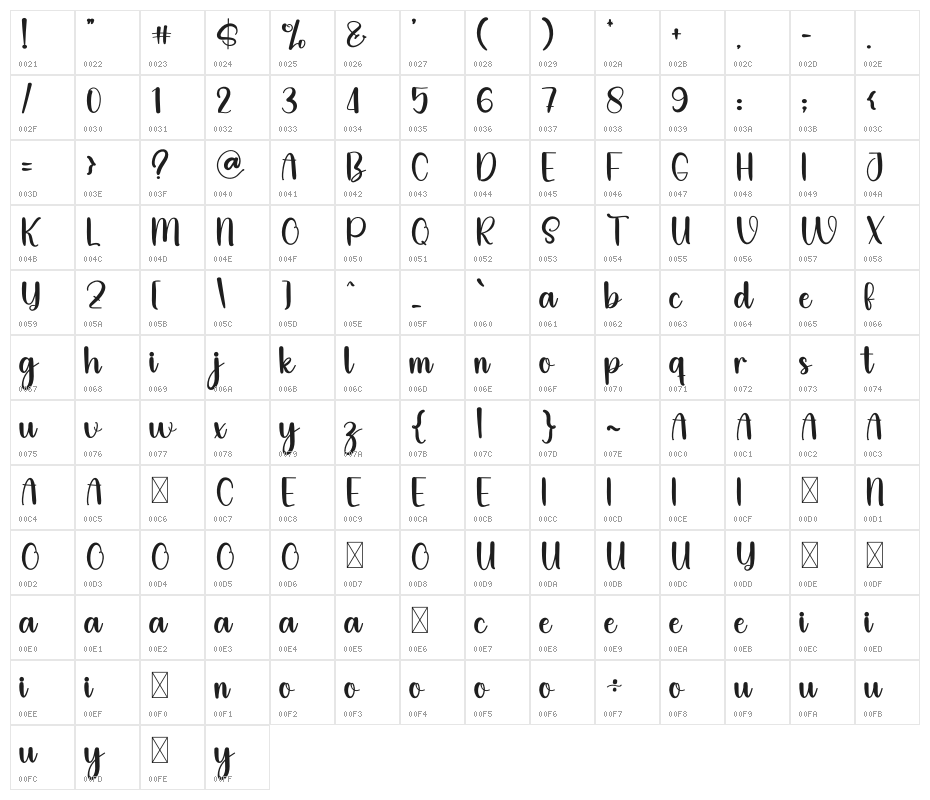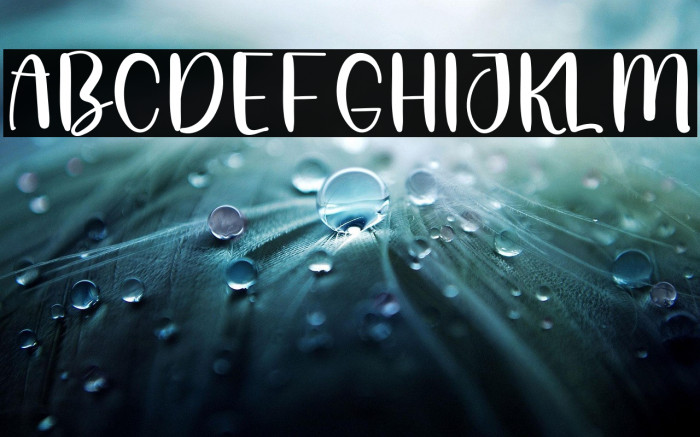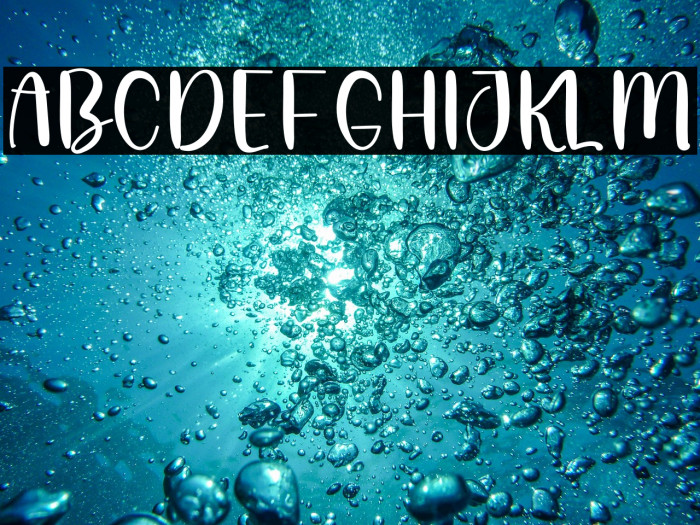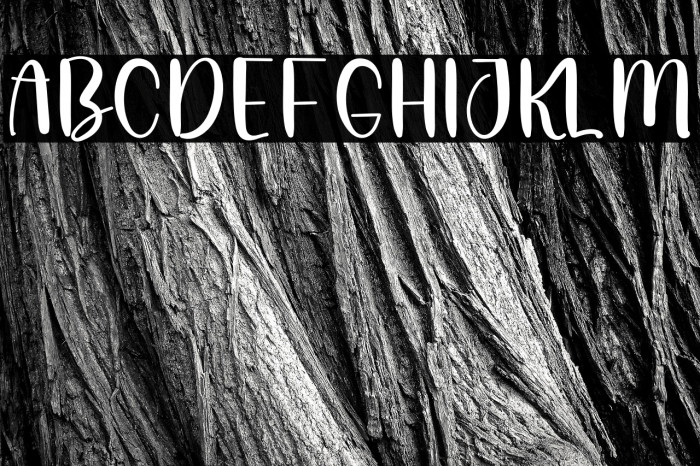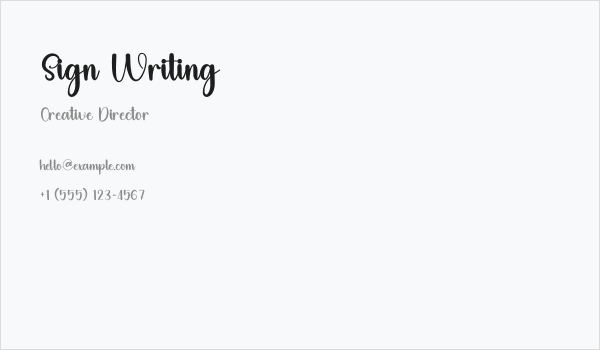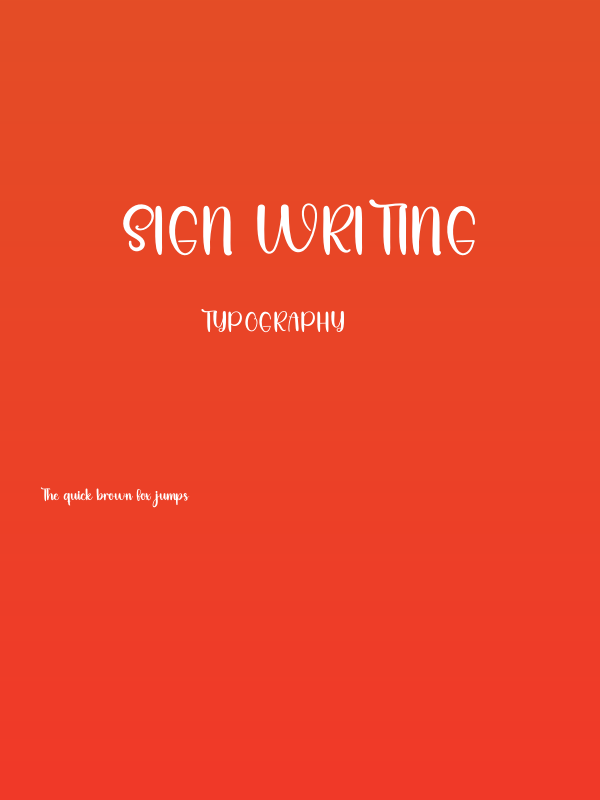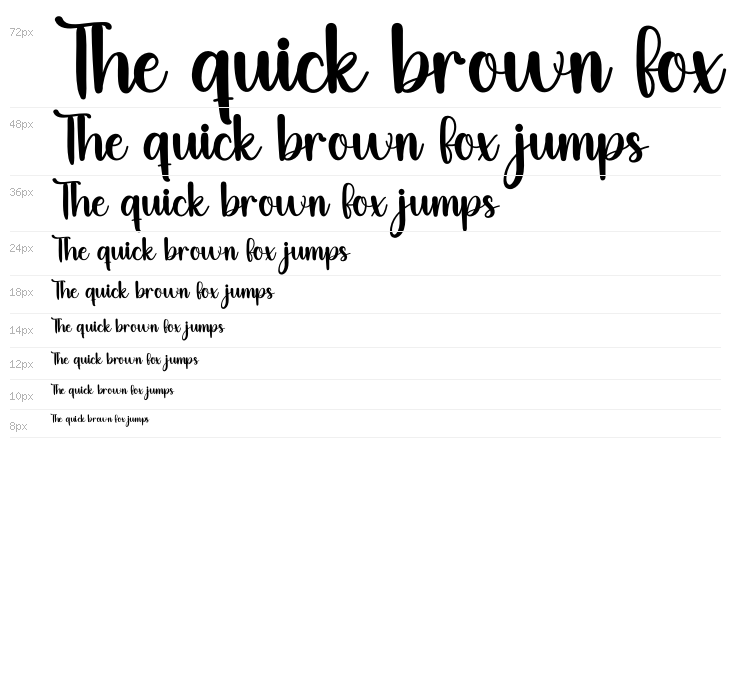
Sign Writing Font
Sign Writing Description
This font features a playful and artistic script style with a handwritten appearance. The uppercase letters are bold and slightly condensed, with a whimsical flair that adds character to each letterform. The lowercase letters maintain a consistent flow, with some letters having unique loops and curves that enhance the font's charm. The numbers are equally expressive, with varying stroke widths that contribute to the overall dynamic feel. Special characters are creatively designed, complementing the font's lively aesthetic. This font is perfect for projects that require a personal touch, such as invitations, greeting cards, or branding materials.
| Width | Condensed |
| Use Case | Logos, Headlines, Creative projects |
| Proposed Projects | Ideal for invitations, greeting cards, branding, and creative projects. |